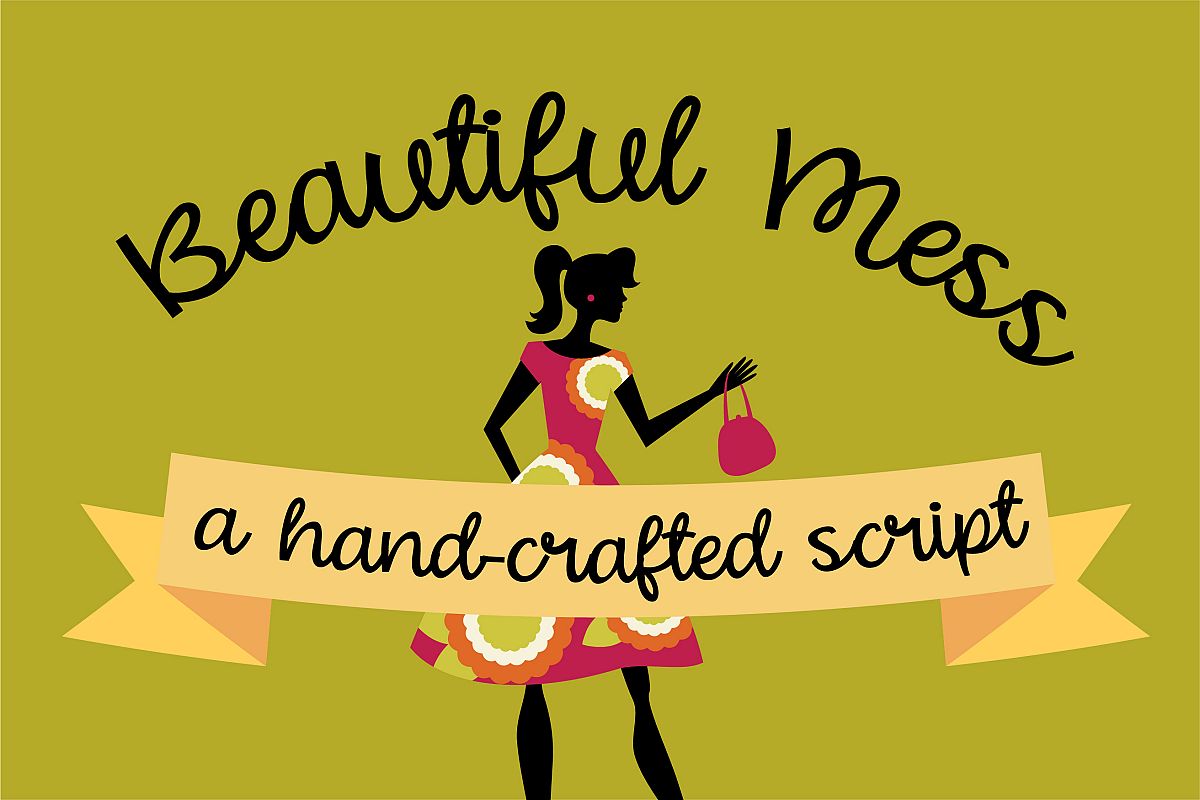
ZP Beautiful Mess
This casual hand-crafted script has a medium weight and makes a great font for crafting, journaling and more. Pair it with it's sister print: ZP Beautiful Mind.